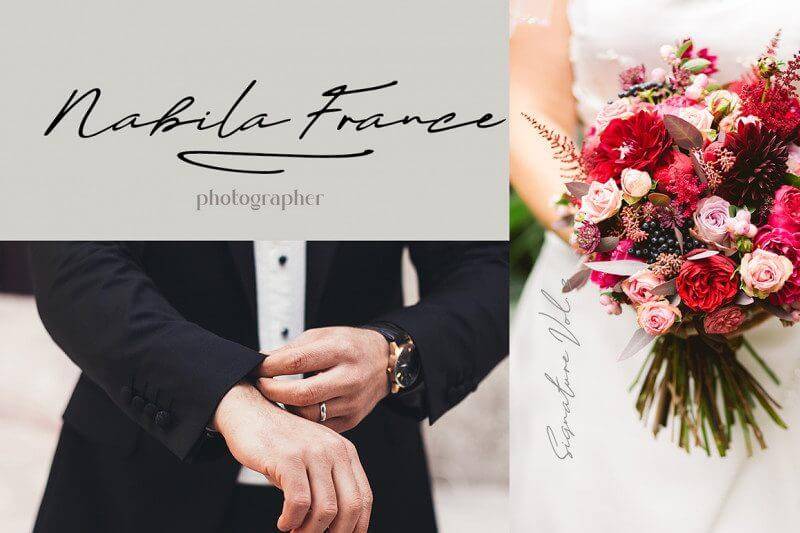
Sophia Bella Signature Font
Introducing Sophia Bella signature font! It is a fabulous handmade script and handwritten typeface. Sophia Bella signature consists of an extra than a hundred and seventy ligatures to make the handmade herbal font. The font comes with Uppercase, Lowercase, Number & Symbol, International Glyphs, and Ligature. You probably think about what format this font can be available in, and the answer is that it’s far going to be available in every TTF and OTF format. The font is designed by madededuk.
This font is ideal for poster design, book covers, merchandise, style campaigns, newsletters, branding, advertising, magazines, greeting cards, album covers, and quote designs, and extra. The font seems ideal in any form of wedding ceremony card. You also can use this font in wedding ceremony videography so that you can appearance very pretty.